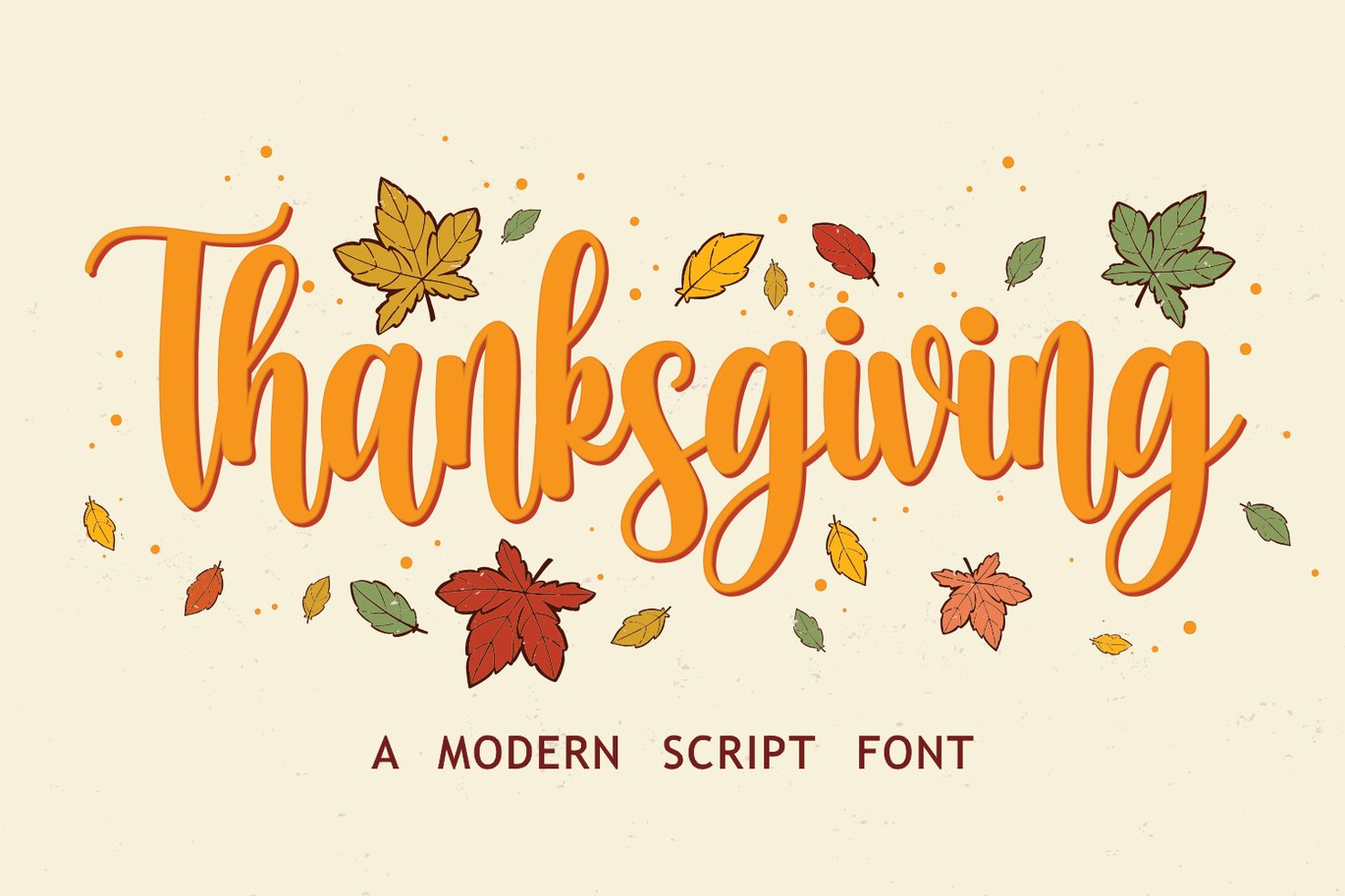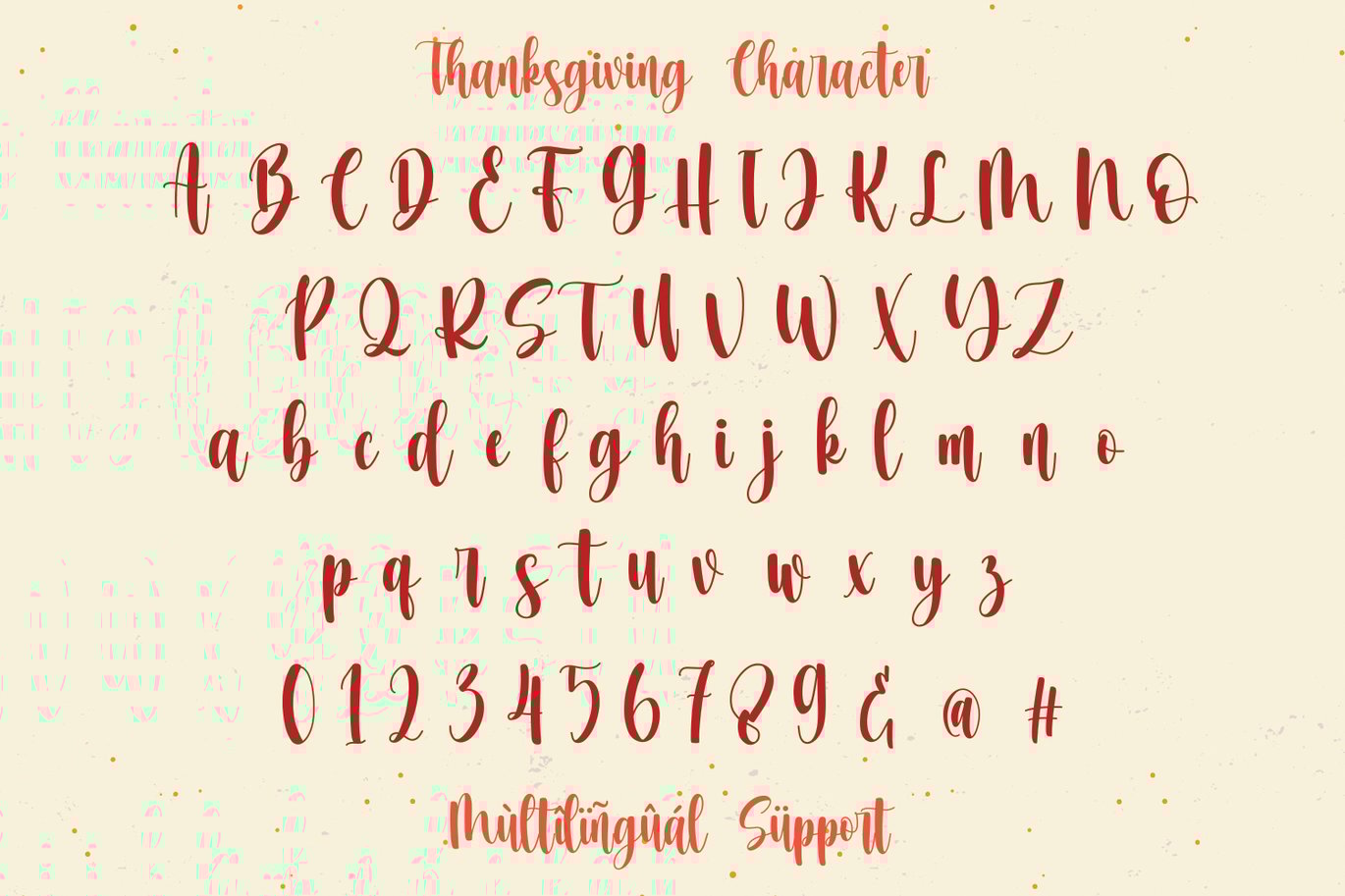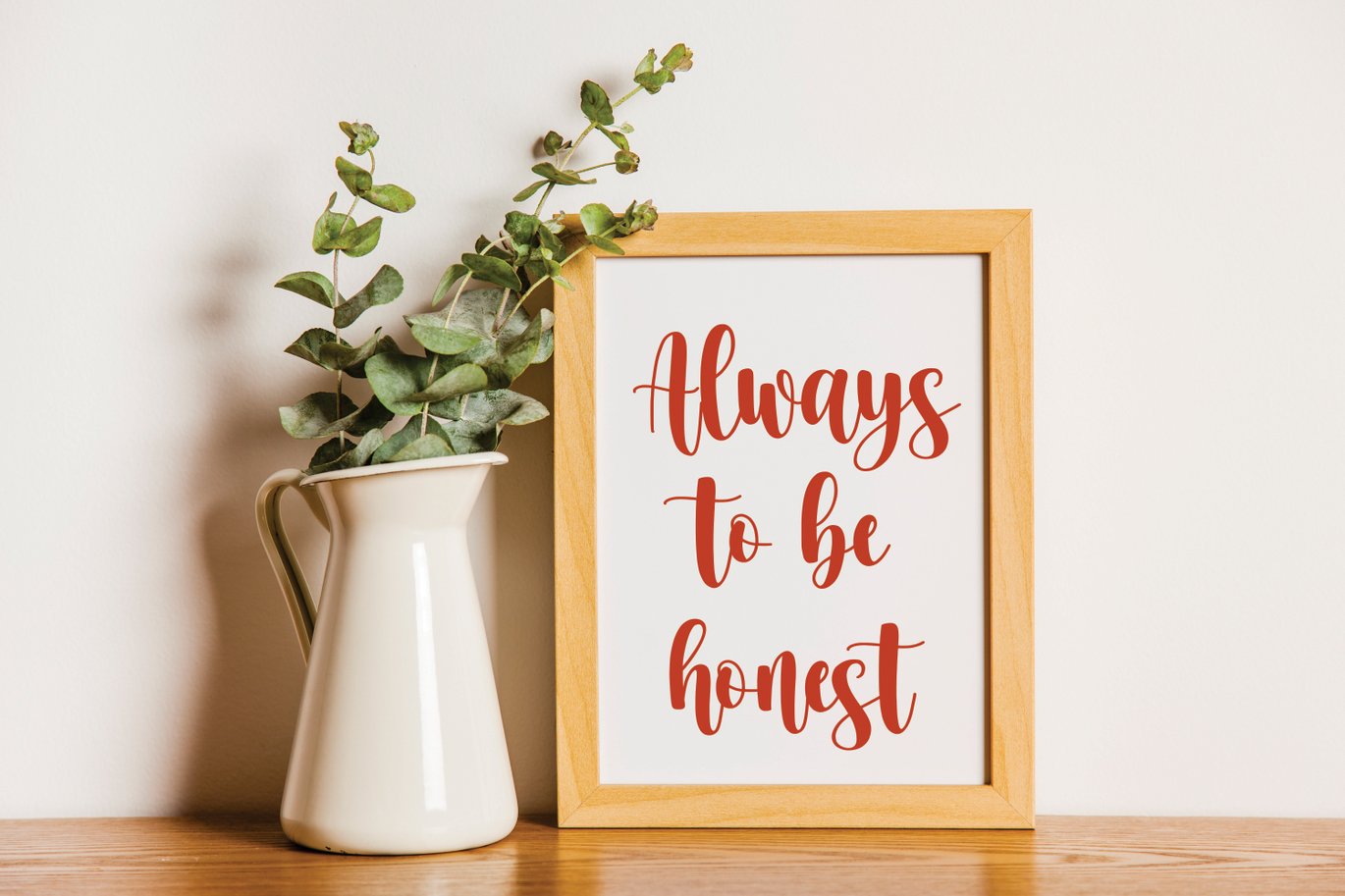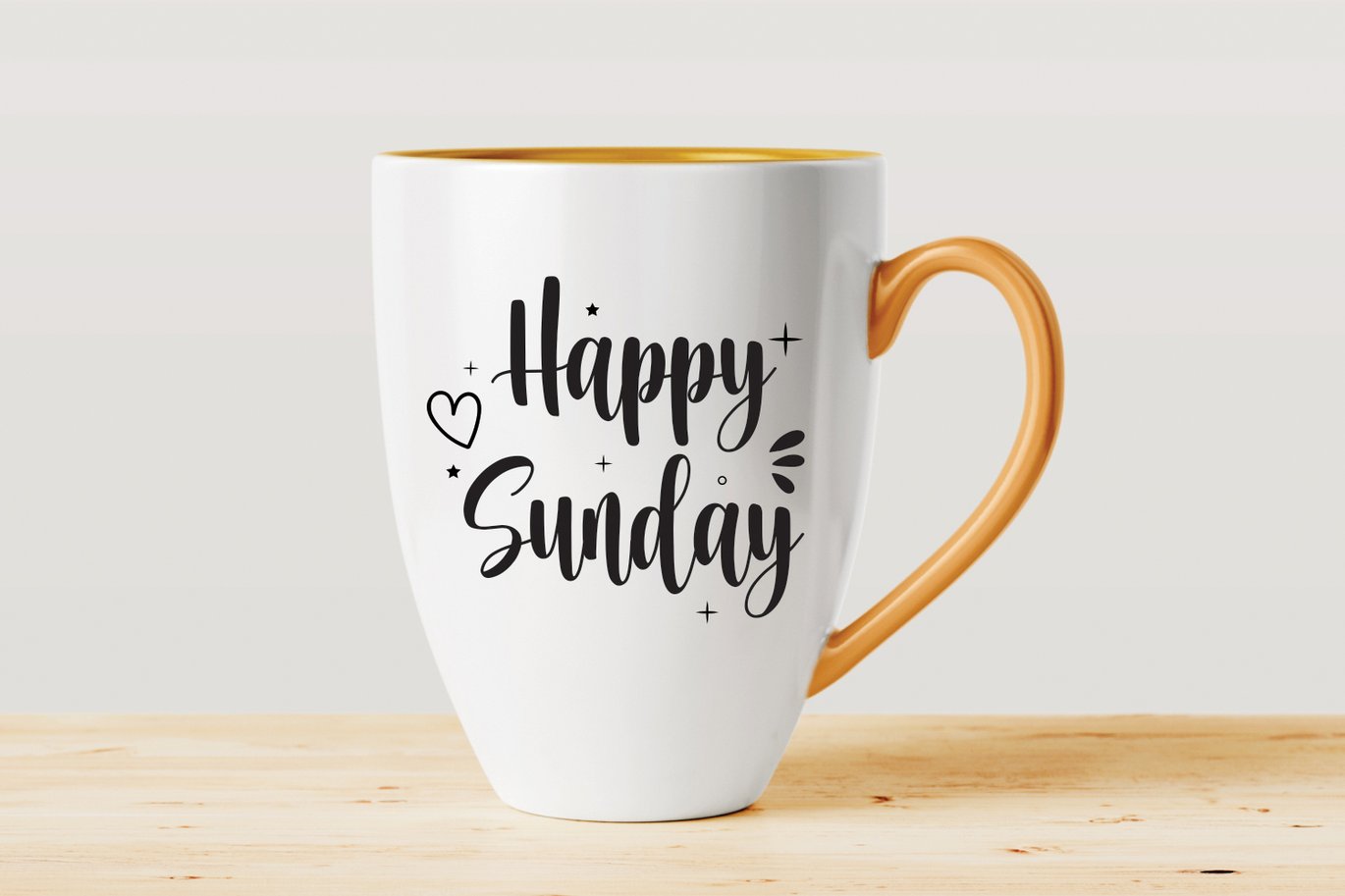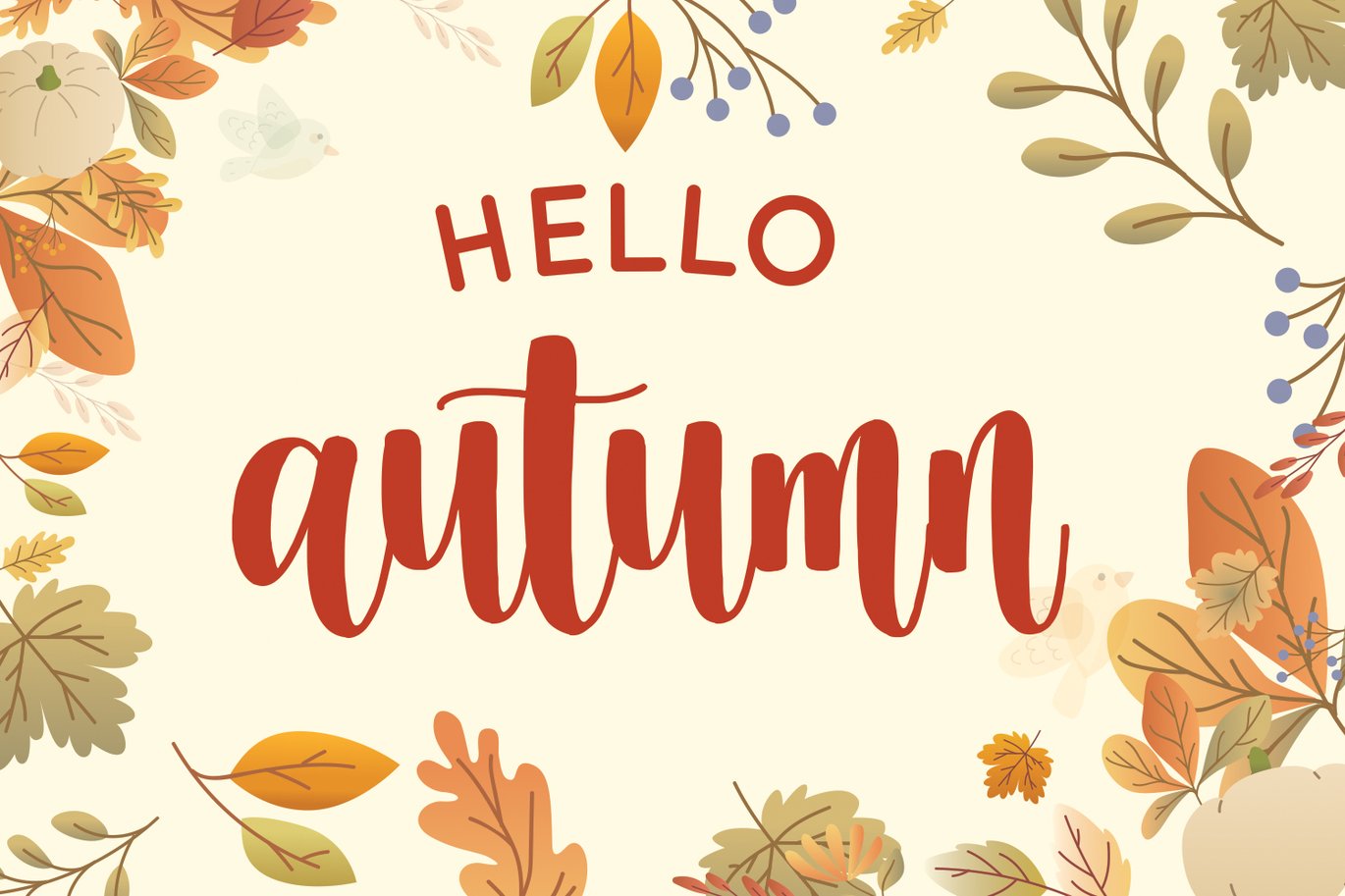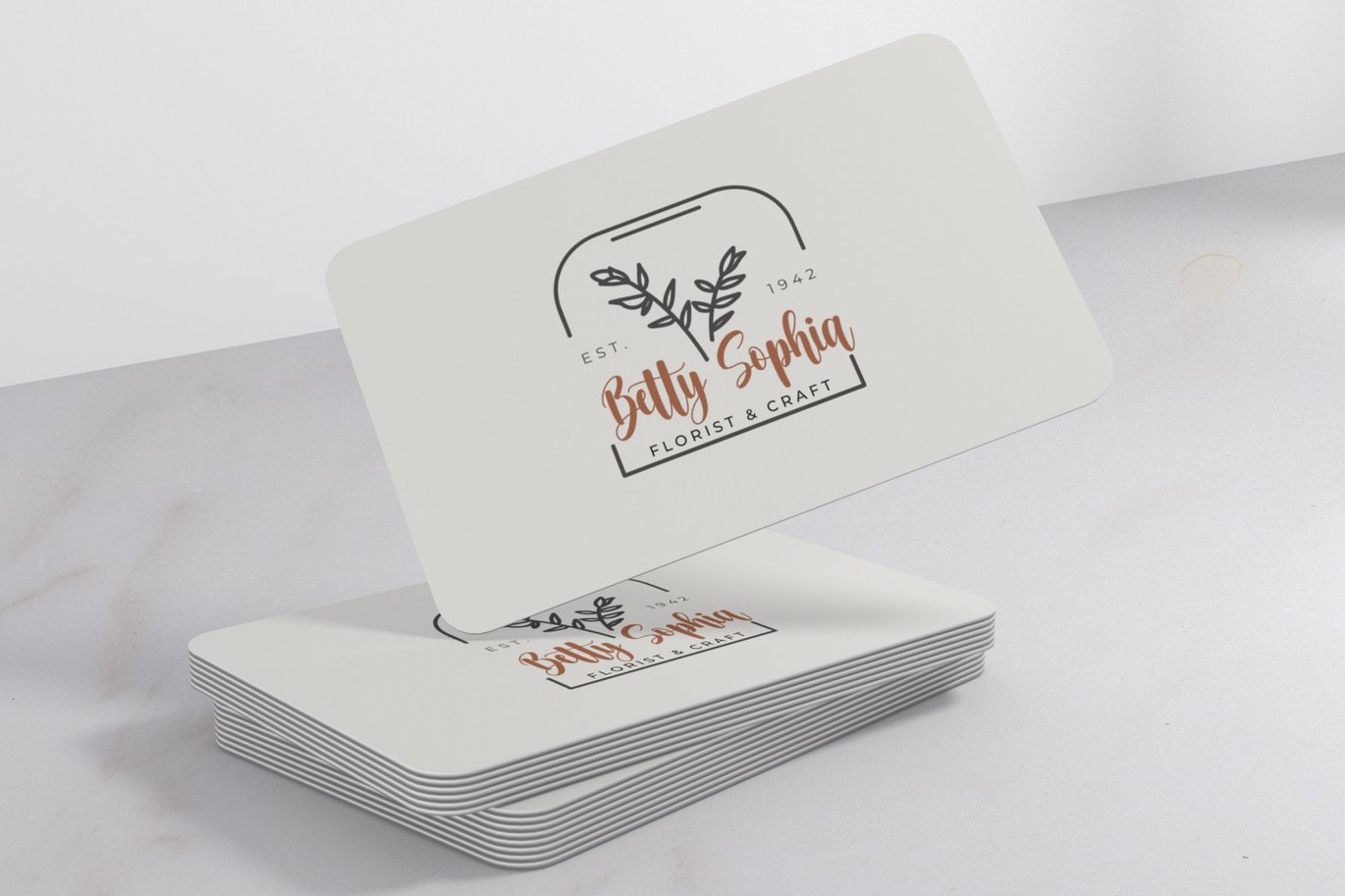
Thanksgiving Font
Thanksgiving Script Font is a charming and whimsical script handwritten designed to evoke a sense of celebration and warmth. This font captures the essence of various festive occasions throughout the year, making it a versatile choice for a wide range of creative projects. With a cute and playful aesthetic, it perfectly embodies the spirit of holidays and seasons like Christmas, winter, spring, autumn, and New Year.
The Thanksgiving Script Font is ideal for crafting, embroidery, and holiday-themed designs. Its graceful and organic strokes give a personal touch to any project, while its versatility allows it to be used for both casual and formal applications. Whether you’re creating greeting cards, banners, invitations, or seasonal crafts, this font adds a delightful and festive touch to your designs.
With its handcrafted feel, Thanksgiving Script Font infuses your projects with a warm and inviting atmosphere. It’s the perfect choice for anyone looking to add a touch of holiday spirit, nostalgia, and celebration to their creative work.